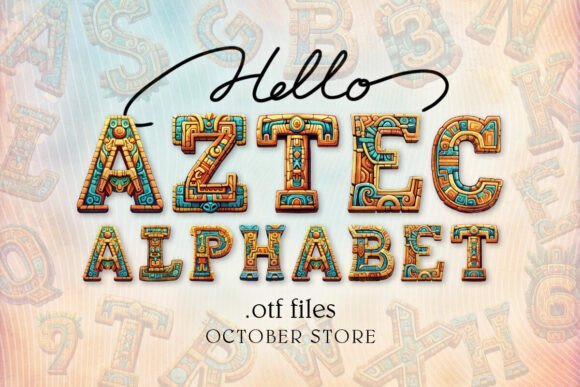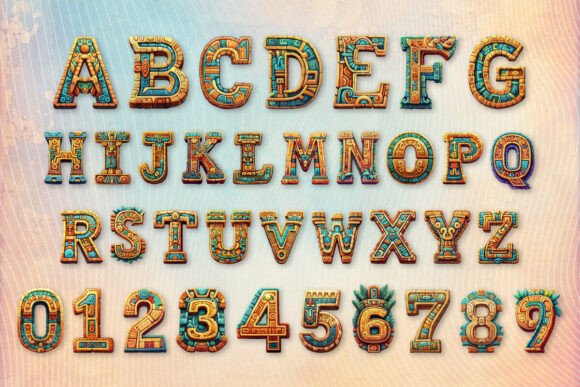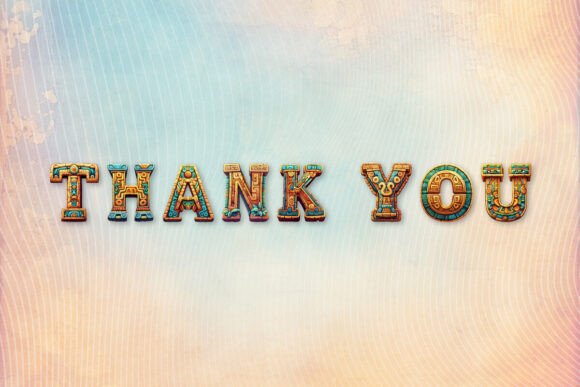
Aztec Alphabet Font
About the Aztec Alphabet Font
We are excited to introduce Aztec Alphabet Font, a must-have typeface for any serious designer. Introducing the vibrant Aztec Alphabet Font, a masterpiece that brings the ancient ethos of temple run style to your foreground. A myriad of colors dance upon each character, making every word a stunning visual experience. This font exudes not only aesthetic appeal but also steeped in a beautiful history, a tale of time translated into typography. Immerse yourself in the tapestry of narratives that this beautiful font weaves with each stroke and curve. Let your creative projects speak volumes in character with the Aztec Alphabet Font, an emblem of style etched with hues of cultural richness.